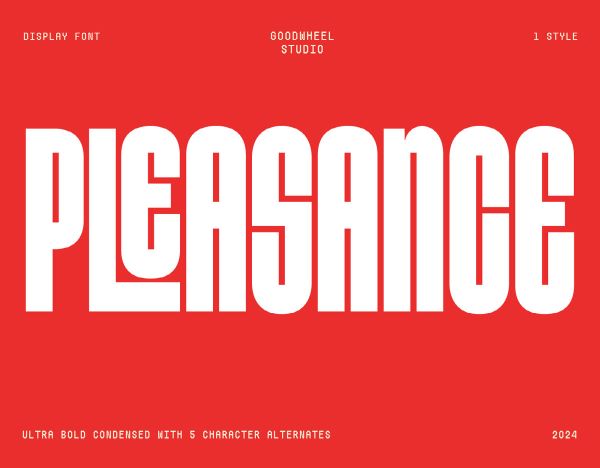
Pleasance Font
Pleasance by Goodwheel Studio is a free ultrabold tall font built for maximum typographic presence — its tightly packed, powerful letterforms designed to dominate headlines, logotypes, and branding applications that demand visual confidence. Beneath that raw weight lies careful craft: five character alternates, discretionary ligatures, five stylistic sets, and support for 68 languages across the Windows 1252 character set. It manages to feel both forceful and refined, which is precisely what separates a great bold display typeface from a blunt one. A demo version is available free for personal use.